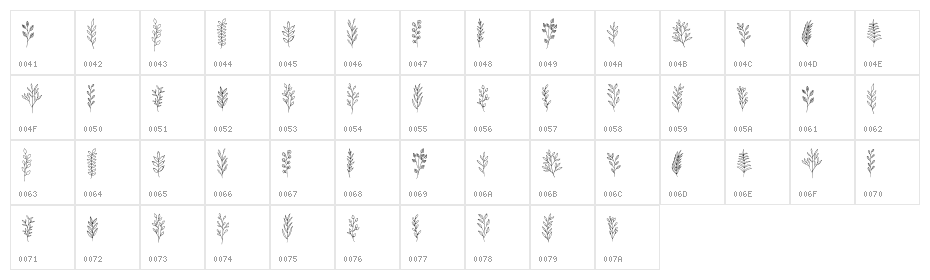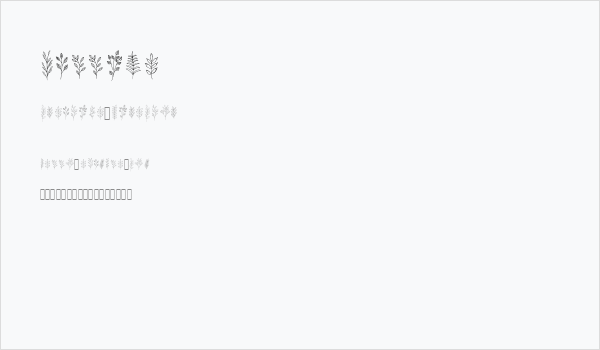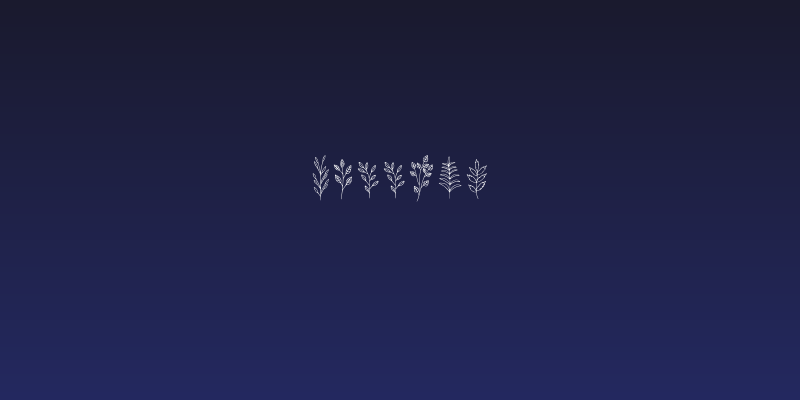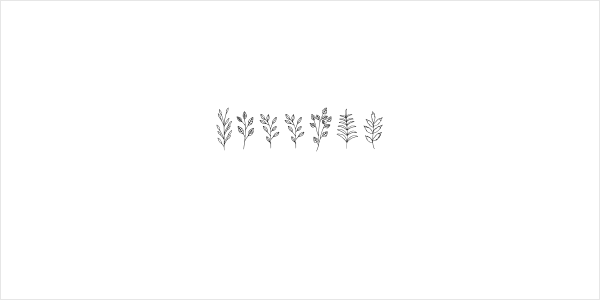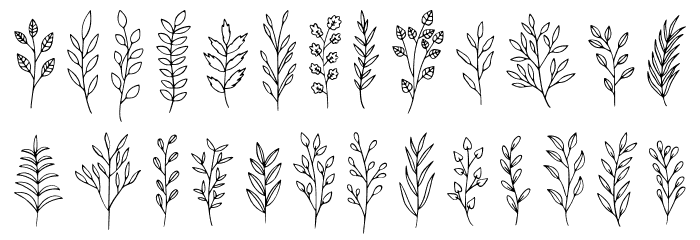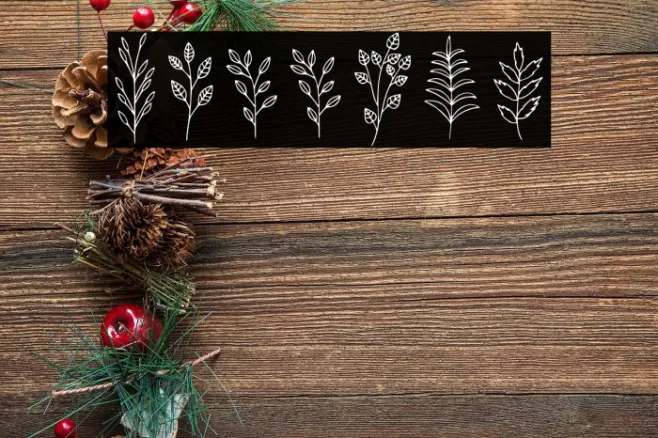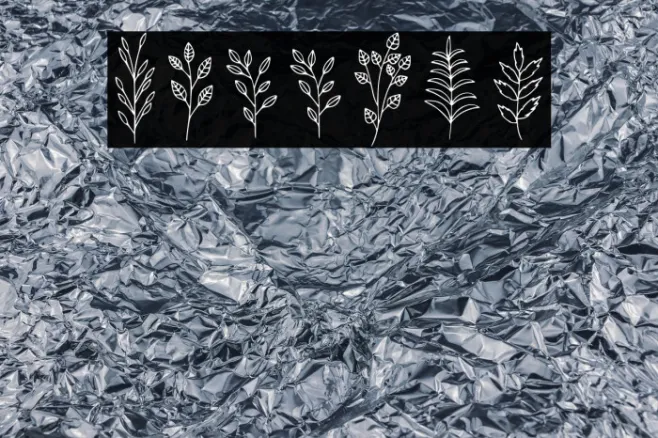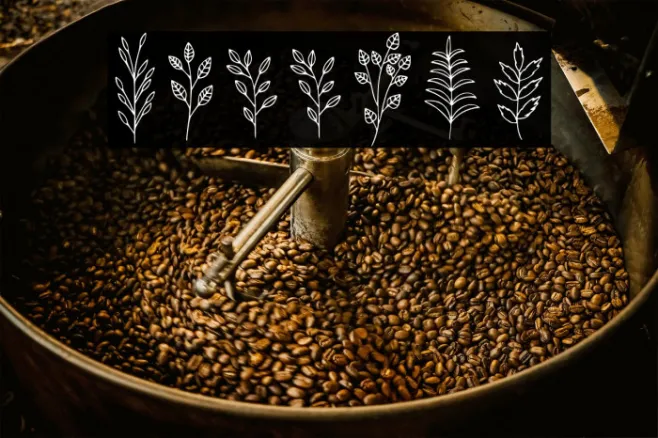
Falline Font
Falline Description
A collection of delicate, hand-drawn botanical illustrations featuring various leafy branches and small flowers. The designs are fine-lined and detailed, evoking a natural and organic aesthetic.
| Overall Style | Organic, Natural, Elegant |
| Use Case | Decorative accents, logos, invitations, packaging |
| Proposed Projects | Ideal for wedding invitations, greeting cards, branding for eco-friendly or natural products, and decorative elements in print or digital design. |